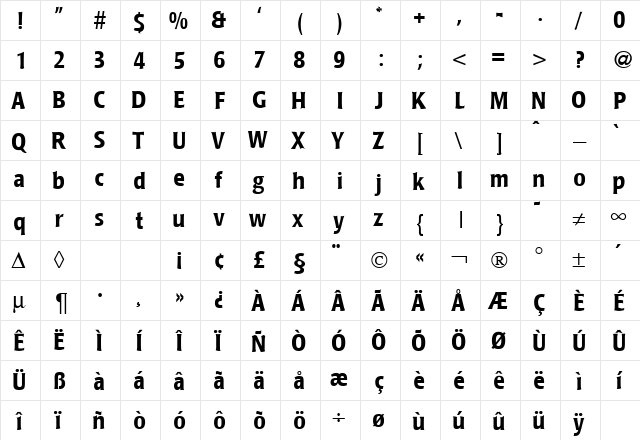
PoemLavishCond Bold
Design Context for PoemLavishCond Typeface
PoemLavishCond is a composed and adaptable typeface that performs quietly and consistently across a wide range of design contexts. Its bold stroke weight gives it real presence on the page. Its narrow stance lets it pack a punch even in space-constrained designs.